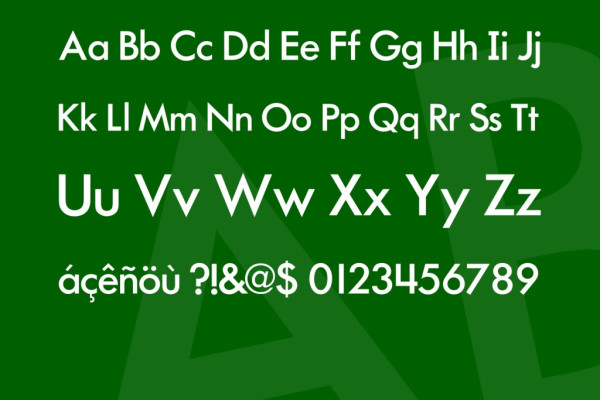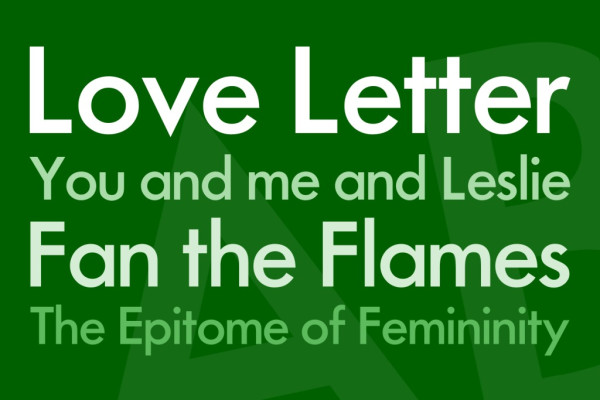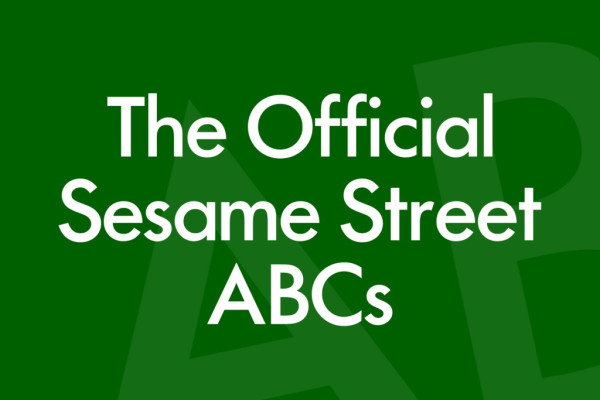
The Official Sesame Street ABCs Font, is a sans serif stunning when combined or separately. This sans serif font style is legible and stunningly designed.
The Official Sesame Street ABCs Font
| Designer Name: | Big Elephant |
| Classification: | Sans Serif Fonts, Style / Aesthetic Fonts |